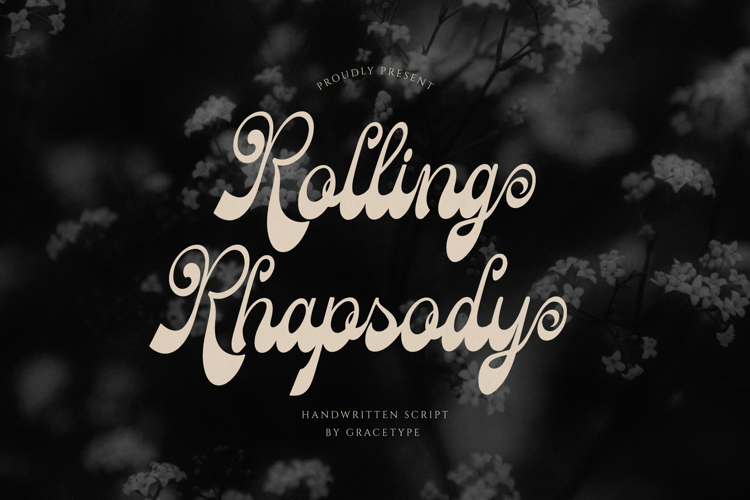
Rolling Rhapsody Font
Rolling Rhapsody | Handwritten Script, is suitable for any projects such as: logos, branding projects, homeware designs, product packaging, mugs, quotes, posters, shopping bags, t-shirts, book covers, name card, invitation cards, greeting cards, label, photography, watermark, special events, and all your other lovely projects that need a Script f taste.